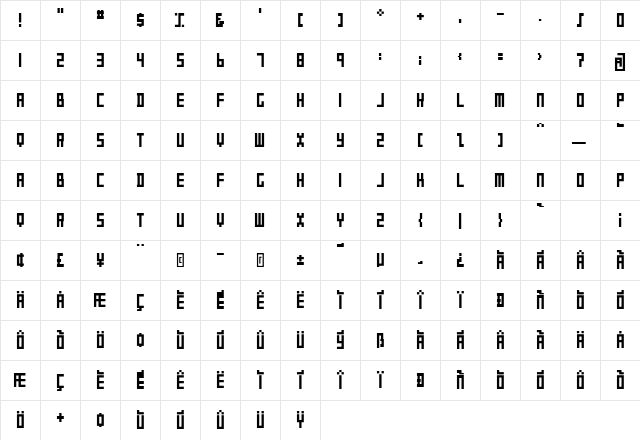
DeStijl Tall Font Preview
DeStijl Tall
DeStijl Tall Font Details
| Style | Tall |
Design Context for DeStijl Typeface
DeStijl offers clean, dependable letterforms without strong stylistic allegiance, making it a practical choice for designers who need flexibility.